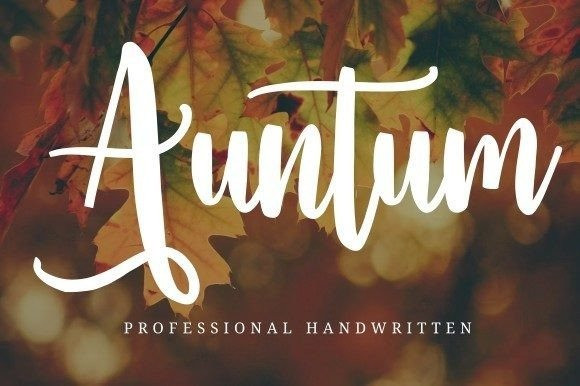
Auntum Font
Auntum Script Font is a professional and flowing handwritten font. You can use this lovely font on quotes, branding, fashion, headers, covers, t-shirt designs, greeting cards, and more. Fall in love with its incredibly versatile style, and use it to create spectacular designs!